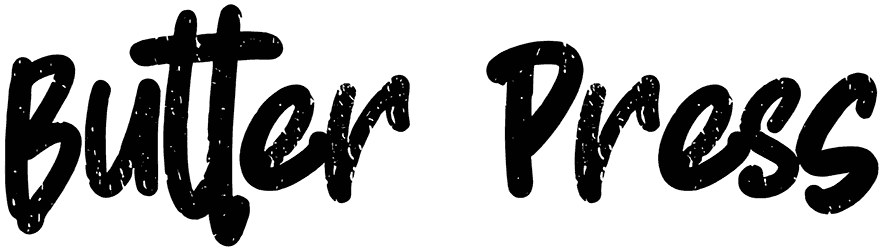
Butter Press Font
Sometimes adding an old and kinda untidy face to your words will be surprising, and this script font has such a visual. Playful characters of the Butter Press font reflect a realistic and casual mood, but it doesn’t support all numbers. You can count on this handwritten font to create a unique festival poster and capture a lot of visitors.